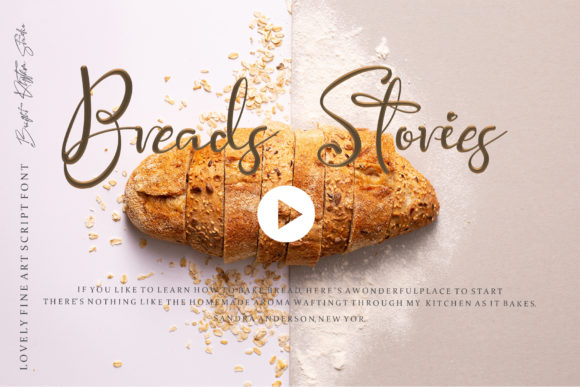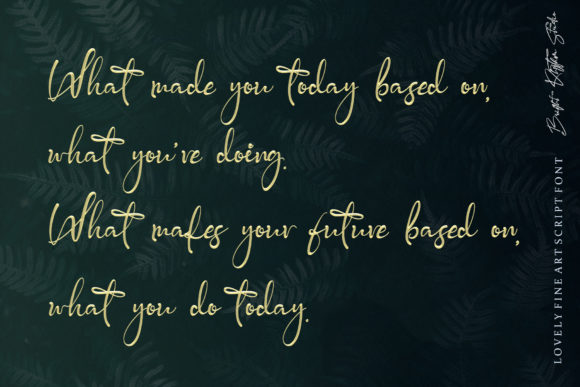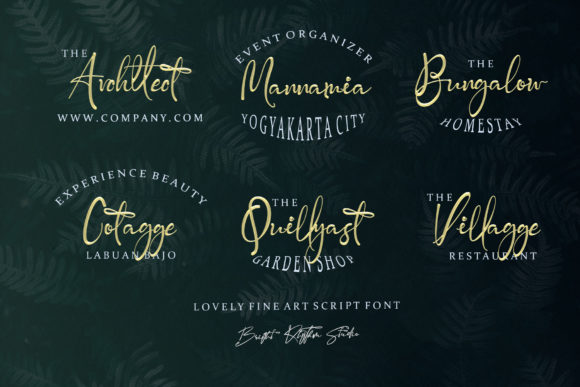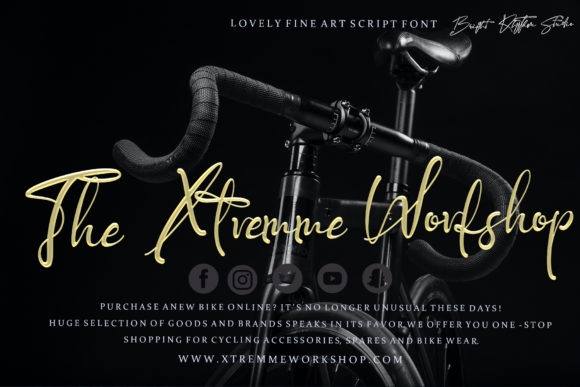
About Pjaulline Font
Pjaulline is a lovely and sweet handwritten font. It looks beautiful on a variety of designs requiring a personalized style, such as wedding invitations, thank you cards, weddings, greeting cards, logos and so on.